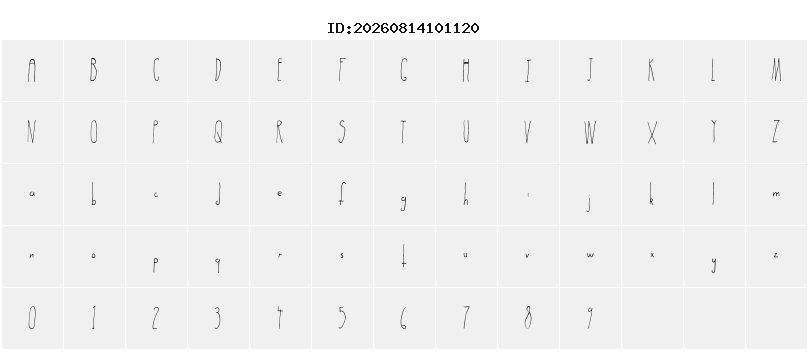
• Font Name: Subterranean Dylan
• Manufacturer: Kenneth Kolloen
About Subterranean Dylan.ttf
Subterranean Dylan.ttf is a modern, elegant sans-serif font designed for ultimate readability and visual harmony. Perfect for branding, headlines, web design, and print materials.